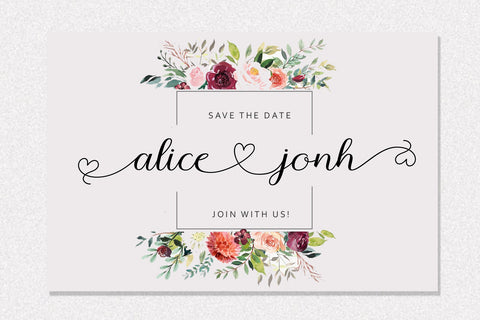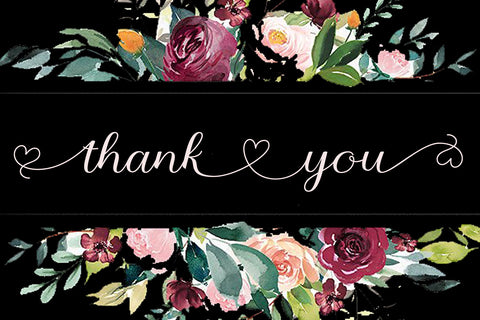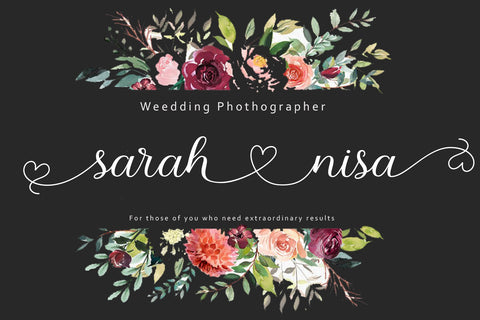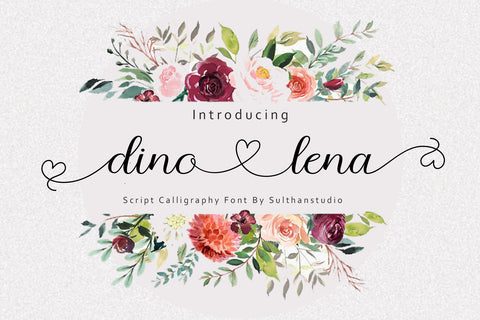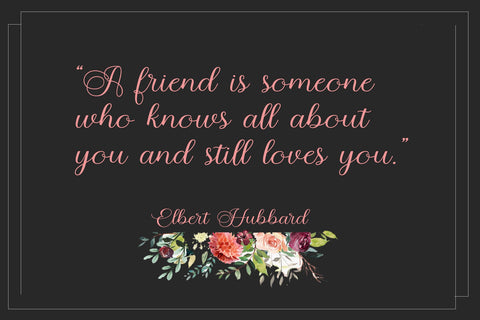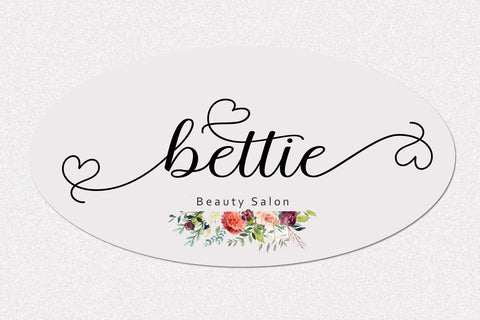
Dino lena
Dino lena is a stylish and tiny script font.with a splicable heart It's perfect for any project like: logos, branding projects, labels, photography, watermarks, special events and all your other beautiful projects that need a beautiful script feel . This font is PUA encoded which means you can access all glyphs and sweeps easily.